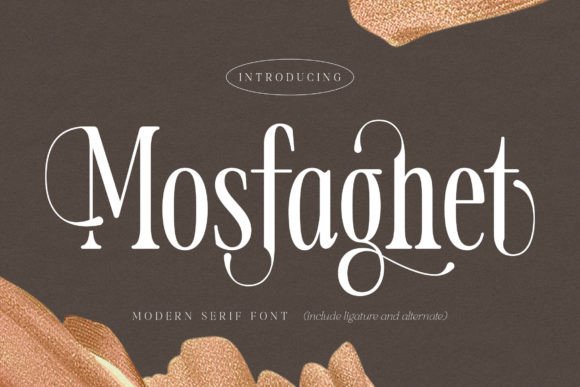
Unleash your creativity and leave a lasting impression with Mosfaghet Font, the epitome of sophistication and luxury. This captivating serif typeface, meticulously crafted by Storytype Studio, exudes elegance and modernism, making it the perfect choice for discerning designers seeking to make a statement.
With its graceful curves and timeless aesthetic, Mosfaghet Font adds an air of refinement to any project it adorns. Whether you're designing a business card, crafting a book or movie title, or creating a captivating fashion brand, this font elevates your work to new heights.
Imagine the impact of your business card adorned with the exquisite strokes of Mosfaghet Font. It commands attention, exuding professionalism and leaving a lasting impression on potential clients. Your words carry more weight, resonating with an aura of elegance and trustworthiness.
For those seeking to create book or movie titles that captivate audiences, Mosfaghet Font is your secret weapon. Its timeless design transports readers and viewers alike to a world of intrigue and enchantment. Every letter, meticulously crafted, draws them deeper into the story's embrace, leaving them spellbound.
In the realm of fashion, Mosfaghet Font reigns supreme. Its inherent glamour and sophistication elevate your brand, attracting clientele who appreciate the finer things in life. Whether adorning clothing tags, magazine covers, or social media campaigns, this font exudes an allure that resonates with the fashion-forward.
But Mosfaghet Font's versatility extends far beyond these realms. Its charm knows no bounds, lending itself beautifully to lettering, quotes, and countless other creative endeavors. Unleash your imagination and let this font guide you to design masterpieces that speak volumes.